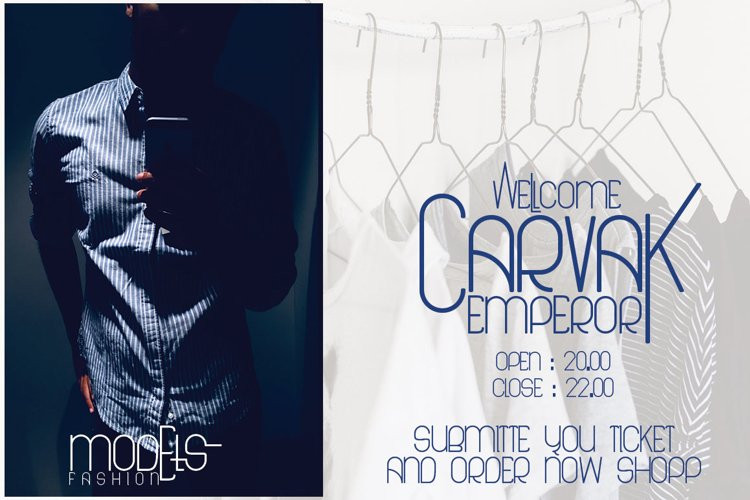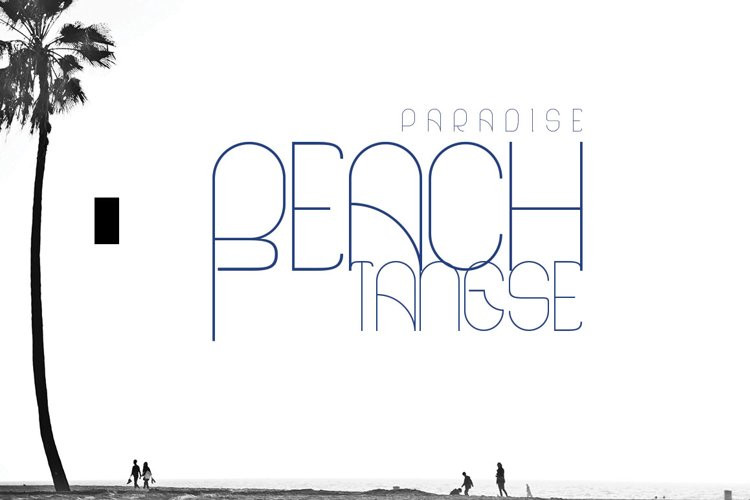
Black Hawk Font
This is a font with an elegant appearance
because of the accent lines that are adjusted to the modern design,
it is suitable for a look that looks red with a special feel